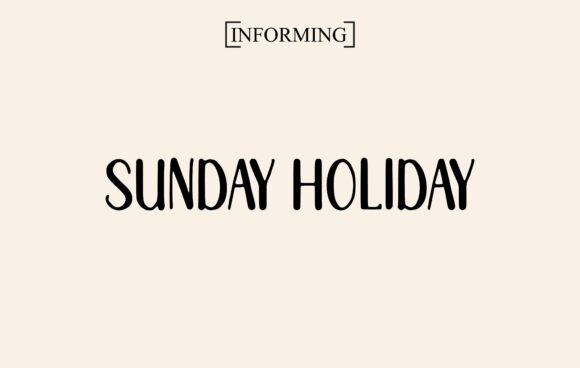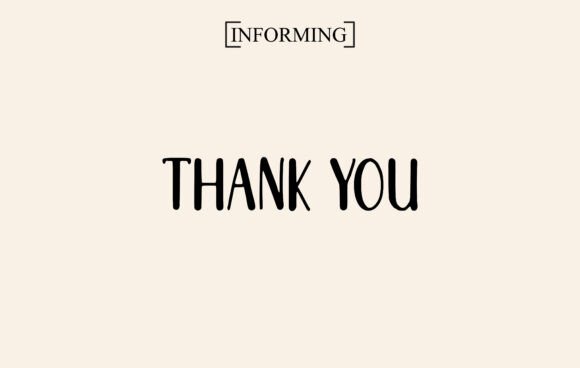
Introduction to Rifqi Font
Have you ever been in the middle of a creative project, staring at a blank canvas, and suddenly, the perfect font pops into your head? For designers, this moment is a game-changer. It’s the spark that ignites a cascade of ideas, and it’s exactly what you need to take your design to the next level. That’s where the Rifqi Font comes in – a true favorite among designers, and a valuable addition to any design resource.
With its legible and stylish design, Rifqi Font is perfect for a wide range of creative projects, from magazine headlines and t-shirt designs to social media graphics and wedding invitations. Whether you’re looking for a font with a transparent background or a free download, Rifqi Font is a high-quality design resource that’s sure to elevate your work.
Key Features of Rifqi Font
- High-quality design resource for creative projects
- Supports various languages and characters for diverse projects
- Designed with attention to detail for a professional look
- Includes multiple weights and styles for added versatility
- Perfect for graphic design, digital art, and publishing projects
Honest Review: Rifqi Font
I recently had the chance to work with the Rifqi Font, and I must say, it’s been a game-changer for my design projects. This beautiful font is perfect for any creative project that requires a unique and elegant touch. With a transparent background and high-quality design, the Rifqi Font is an excellent addition to any designer’s toolkit.
Here are some things that work well with the Rifqi Font:
- ✨ The design is highly customizable, allowing me to adjust the font to fit my specific project needs.
- ⚠️ The Rifqi Font may not be suitable for all types of projects, particularly those that require a bold or sans-serif font.
Overall, I’m thoroughly impressed with the Rifqi Font. Its unique design and high-quality features make it an excellent addition to any design resource collection. Whether you’re working on a personal project or a client-based design, the Rifqi Font is definitely worth checking out.
Rifqi Font
The Rifqi Font is a free download that offers a high-quality design resource for creative projects. With its unique style, this font is perfect for designers looking to add a touch of elegance to their work.
The Rifqi Font is perfect for designing wedding invitations, business cards, and other creative projects that require a touch of elegance. It’s also great for creating social media graphics, posters, and flyers.
Tips for Getting the Most Out of Rifqi Font
To get the most out of the Rifqi Font, use it with a transparent background to create a seamless design. You can also experiment with different font sizes and styles to add depth and visual interest to your design.